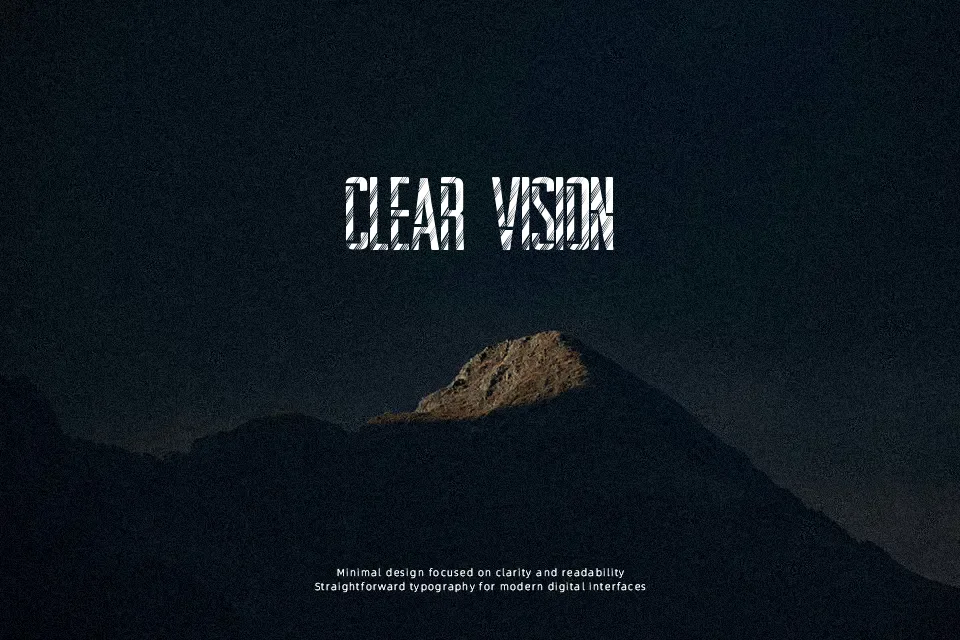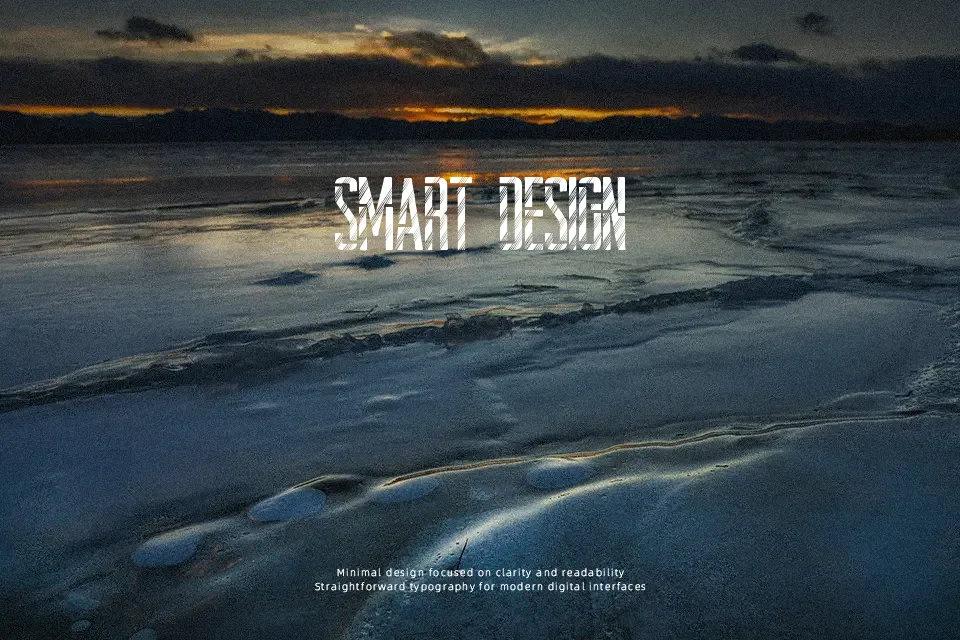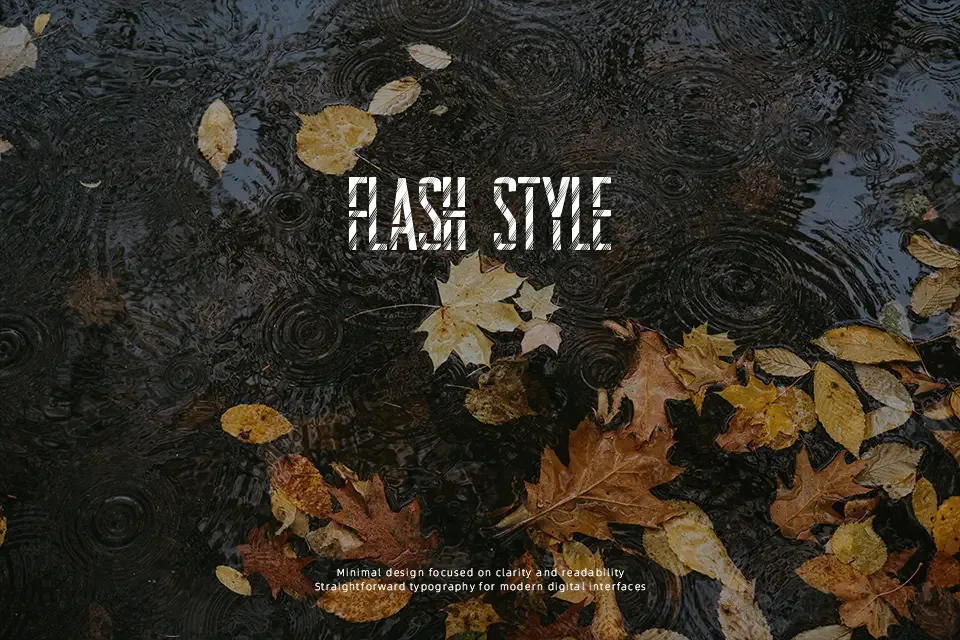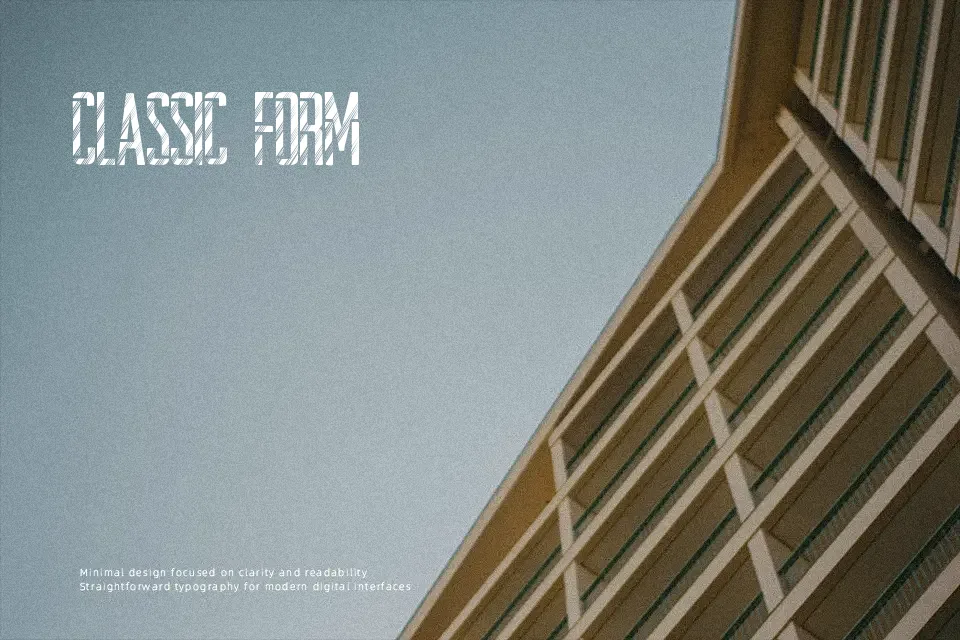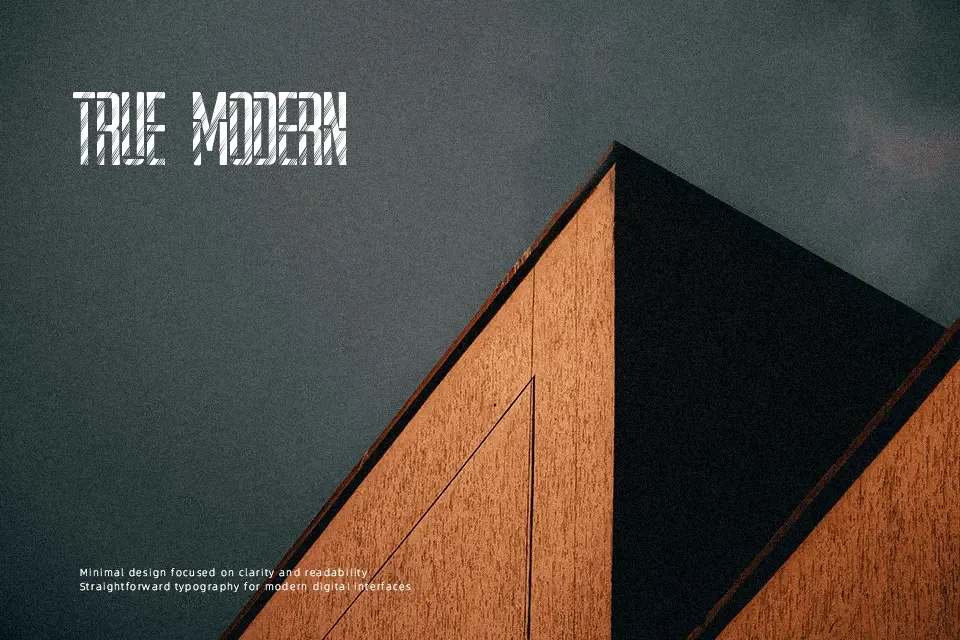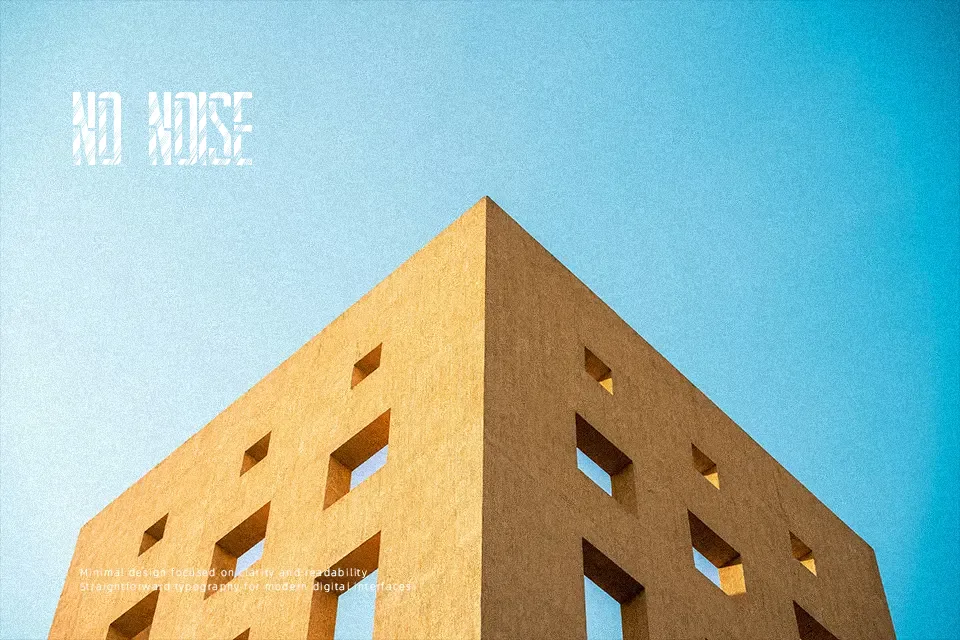
Stencil Disco Font
Stencil Disco Font combines structured geometric cuts with expressive display letterforms to create an energetic retro aesthetic. The glyphs feature heavy vertical weights contrasted by distinct stencil breaks that define its rhythm and stylized construction. Spacing between characters remains relatively compact, allowing headlines and titles to feel cohesive at large display scales. In practical application, the design provides strong visual impact across festival banners, album covers, and themed merchandise graphics. However, the intricate stencil gaps and heavy stroke thickness significantly reduce legibility at smaller text sizes. Consequently, the typeface is not suitable for continuous paragraph reading or dense editorial layouts.
Best For: music festival posters, retro event flyers, vinyl album covers, apparel graphics
Not Ideal For: continuous body text, mobile interface labels, technical manuals, formal documentation
Perfect for branding, headline, and music, with a artistic and decorative style.